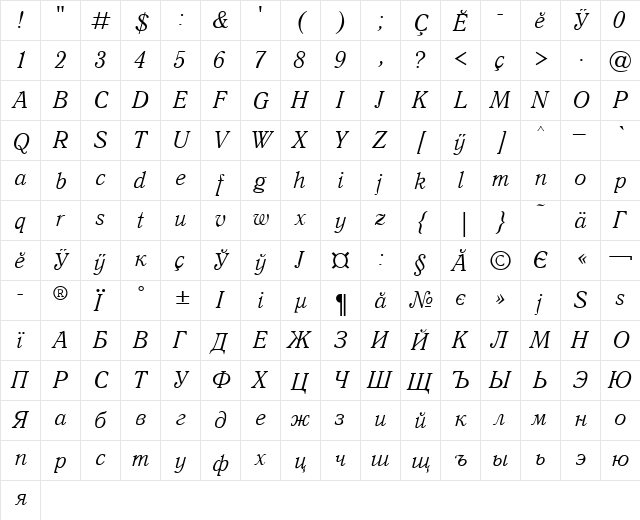
Antiqua Italic Chu CNP Italic
Design Context for Antiqua Italic Chu CNP Typeface
Antiqua Italic Chu CNP is a composed and adaptable typeface that performs quietly and consistently across a wide range of design contexts. Its italic angle brings a sense of urgency and motion to the letterforms.
Pro Tip: Try Antiqua Italic Chu CNP for annotation and caption copy alongside an upright companion — the contrast in angle creates a dynamic but ordered typographic system.